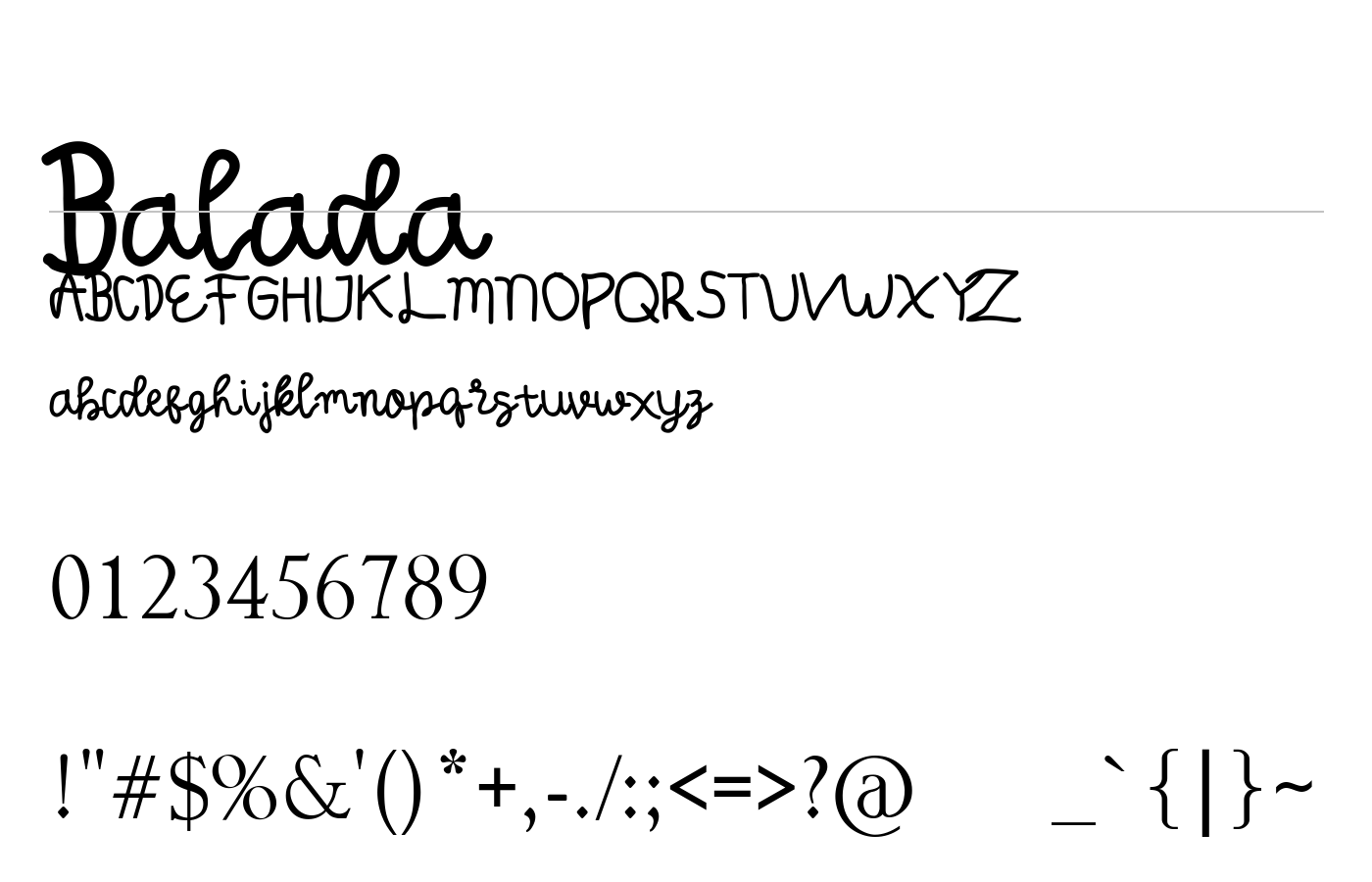
Balada is a playful and casual handwritten font characterized by its lively, irregular strokes and rounded forms, which give it a friendly and approachable feel. Its whimsical uppercase and lowercase letters, combined with consistent stroke weight and slightly condensed spacing, make it ideal for creative projects, children's materials, and informal branding. This font works well in logos, invitations, or headlines where a personal, cheerful touch is desired.
Balada Font